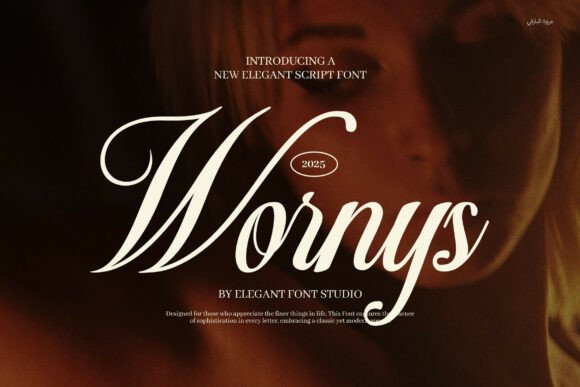
Wornys Font: Discover the Timeless Elegance of Wornys Wedding Script Font
In the world of typography, few fonts manage to capture the essence of elegance and sophistication as effectively as Wornys Wedding Script Font. This beautifully crafted script typeface is designed to bring a touch of luxury and charm to any project, making it an ideal choice for a variety of professional and personal uses. With its smooth, flowing lines, exquisite ligatures, and calligraphic alternates, Wornys ensures that your designs stand out with grace and style.
The Characteristics of Wornys Wedding Script Font
Wornys Wedding Script Font is characterized by its elegant and smooth calligraphy style, which is reminiscent of traditional wedding scripts. The font features a rich set of ligatures and alternate characters, allowing designers to create unique and personalized designs. The carefully crafted characters maintain readability without compromising artistic flair, making your text both beautiful and legible.
Elegant and Smooth Calligraphy Style
The calligraphy style of Wornys Wedding Script Font is one of its most distinctive features. The font’s smooth lines and curves give it a fluid and dynamic appearance, making it perfect for designs that require a touch of sophistication. Whether you’re creating wedding invitations, branding materials, or luxury packaging, Wornys ensures that your design looks refined and elegant.
Rich Set of Ligatures and Alternate Characters
Wornys Wedding Script Font also features a rich set of ligatures and alternate characters, which allow designers to add a unique touch to their designs. The ligatures and alternates can be used to create custom word combinations, making your text stand out from the rest. This feature is particularly useful for designers who want to create personalized wedding invitations, branding materials, or luxury packaging.
Key Features of Wornys Wedding Script Font
- Elegant and smooth calligraphy style: Wornys Wedding Script Font features a beautiful calligraphy style that is perfect for designs that require a touch of sophistication.
- Rich set of ligatures and alternate characters: The font features a rich set of ligatures and alternate characters, allowing designers to create unique and personalized designs.
- Perfect for luxury branding, wedding invitations, and event stationery: Wornys Wedding Script Font is perfect for designs that require a touch of luxury and sophistication, such as wedding invitations, branding materials, and event stationery.
- Suitable for professional use in logos, magazines, and advertisements: The font is suitable for professional use in a variety of applications, including logos, magazines, and advertisements.
- Designed for clear readability and artistic beauty: Wornys Wedding Script Font is designed to be both beautiful and legible, making it perfect for designs that require a touch of sophistication.
Uses of Wornys Wedding Script Font
Wornys Wedding Script Font is a versatile font that can be used in a variety of applications. Its elegance and sophistication make it perfect for designs that require a touch of luxury and charm.
Wedding Invitations and Event Stationery
Wornys Wedding Script Font is perfect for wedding invitations and event stationery. The font’s elegant and smooth calligraphy style makes it ideal for creating beautiful and sophisticated wedding invitations. The font’s ligatures and alternate characters also allow designers to add a unique touch to their designs.
Luxury Branding and Packaging
Wornys Wedding Script Font is also perfect for luxury branding and packaging. The font’s sophisticated and elegant appearance makes it ideal for creating high-end branding materials, such as logos, business cards, and product packaging.
Fashion Branding and Advertising
The font’s versatility also makes it suitable for fashion branding and advertising. Wornys Wedding Script Font can be used to create stylish and sophisticated fashion branding materials, such as logos, advertisements, and magazine covers.
Music Albums and Posters
Wornys Wedding Script Font can also be used to create music albums and posters. The font’s elegant and smooth calligraphy style makes it perfect for creating beautiful and sophisticated music album covers and posters.
Websites and Digital Media
The font’s legibility and artistic beauty also make it suitable for use on websites and digital media. Wornys Wedding Script Font can be used to create beautiful and sophisticated website headers, titles, and other digital content.
Why Choose Wornys Wedding Script Font?
Wornys Wedding Script Font is a high-quality font that offers a unique combination of elegance, sophistication, and versatility. Here are some reasons why you should choose Wornys Wedding Script Font for your next project:
Unique and Personalized Designs
Wornys Wedding Script Font allows designers to create unique and personalized designs. The font’s ligatures and alternate characters make it possible to create custom word combinations, making your text stand out from the rest.
In conclusion, Wornys Wedding Script Font is a beautifully crafted script typeface that is designed to bring elegance and sophistication to any project. Its smooth, flowing lines, exquisite ligatures, and calligraphic alternates make it perfect for designs that require a touch of luxury and charm. With its versatility and high-quality typography, Wornys Wedding Script Font is an ideal choice for a variety of professional and personal uses.